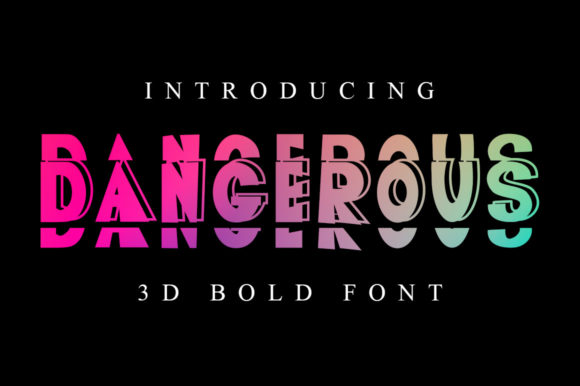
I still remember the frustration of working on a project, hours spent perfecting every detail, only to hit a roadblock: finding the right font. It was for a client’s luxury brand, and I needed something that exuded elegance and sophistication. After scouring the internet, I stumbled upon Dangerous Font – a beautiful, bold display font that instantly caught my attention. In this article, I’ll share my experience with Dangerous Font, its features, and how to make the most of it in your designs.
First Impressions: A Beautiful and Bold Display Font
Dangerous Font is a stunning display font that can elevate your designs to the next level. Its fresh, clean, and elegant style makes it perfect for a wide range of projects, from formal to informal. Whether you’re working on a logo, brochure, or social media graphics, this font is sure to add a cool touch to your designs.
- ✨ Unique and eye-catching design: Dangerous Font stands out from the crowd with its bold and elegant style.
- ✅ Highly versatile: This font can be used in various projects, from formal to informal, and still look amazing.
- 💻 Easy to read: Despite its bold style, Dangerous Font is surprisingly easy to read, even at smaller sizes.
While Dangerous Font is an excellent choice, there are a few things to keep in mind:
- 🤔 Limited use in body text: Due to its bold style, Dangerous Font might not be the best choice for lengthy body text. It’s better suited for headings and titles.
- ⚠️ Some characters may require manual kerning: As with any font, some characters may require manual kerning to achieve optimal results.
A Practical Guide: Using Dangerous Font in Your Designs
The Designer Inspiration Behind Dangerous Font
According to its creators, Dangerous Font was inspired by the world of high-end fashion and luxury brands. The goal was to create a font that exudes elegance and sophistication, while still being bold and eye-catching.
| Author | Mr.Soon Design |
Q: What type of projects is Dangerous Font best suited for?
A: Dangerous Font is versatile and can be used in various projects, from formal to informal, such as logos, brochures, social media graphics, and more.
Q: Can I use Dangerous Font in combination with other fonts?
A: Yes, Dangerous Font can be paired with other fonts to create a unique look. Experiment with different font combinations to find the perfect match.
Q: Is Dangerous Font suitable for body text?
A: While Dangerous Font is easy to read, it’s better suited for headings and titles. For lengthy body text, consider using a more traditional font.